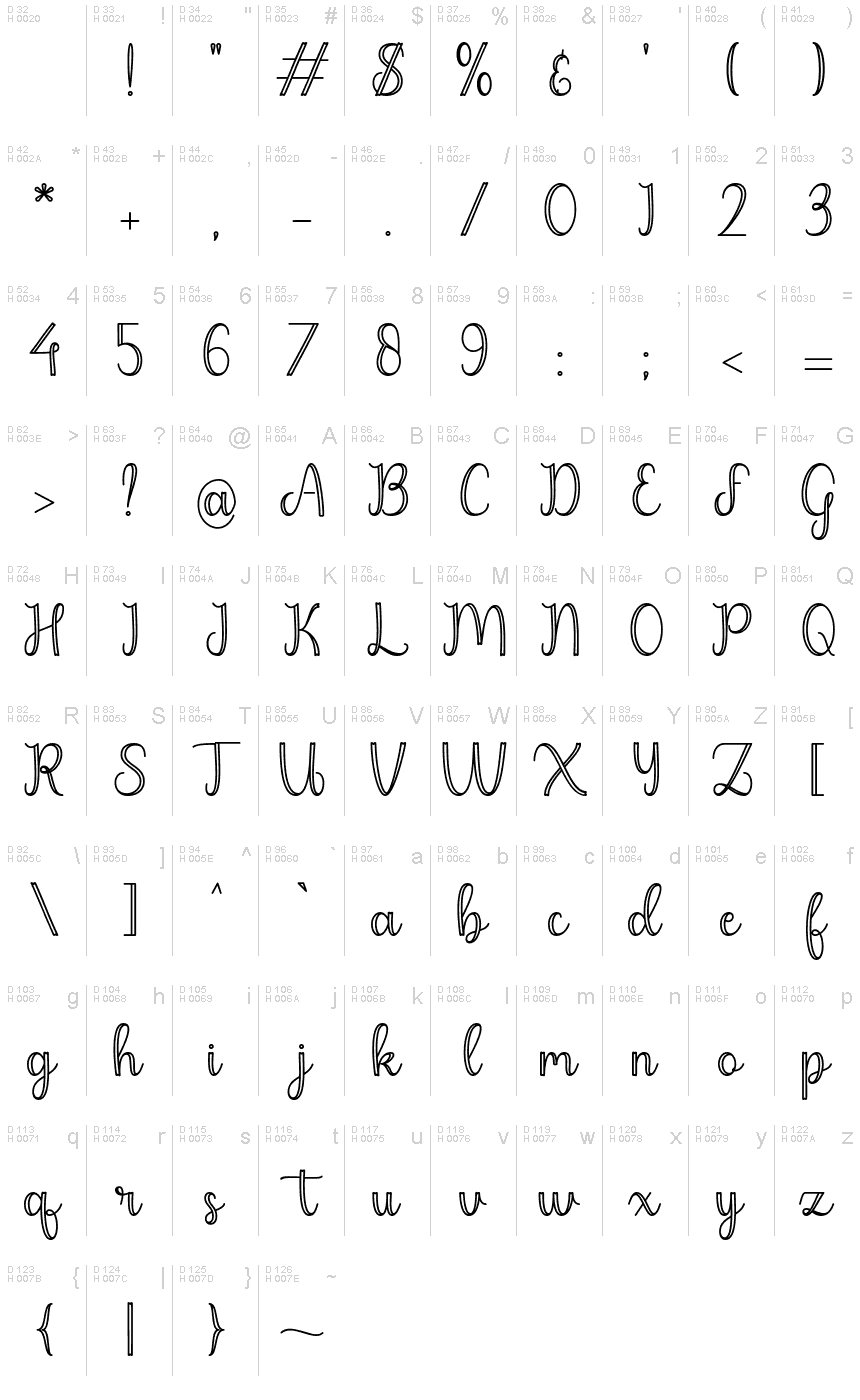
Nathalia
Nathalia, designed by Hardiboy Design, is an exquisite semi-light outlined calligraphy font that adds elegance and sophistication to any project.
Its delicate strokes and intricate details make it perfect for wedding invitations, greeting cards, and luxury branding. Nathalia's timeless beauty also complements fashion editorials, lifestyle magazines, and high-end product packaging. With its graceful curves and stylish flair, this font captures attention effortlessly.
Whether you're aiming for a romantic or glamorous aesthetic, Nathalia will elevate your designs and leave a lasting impression on your audience.